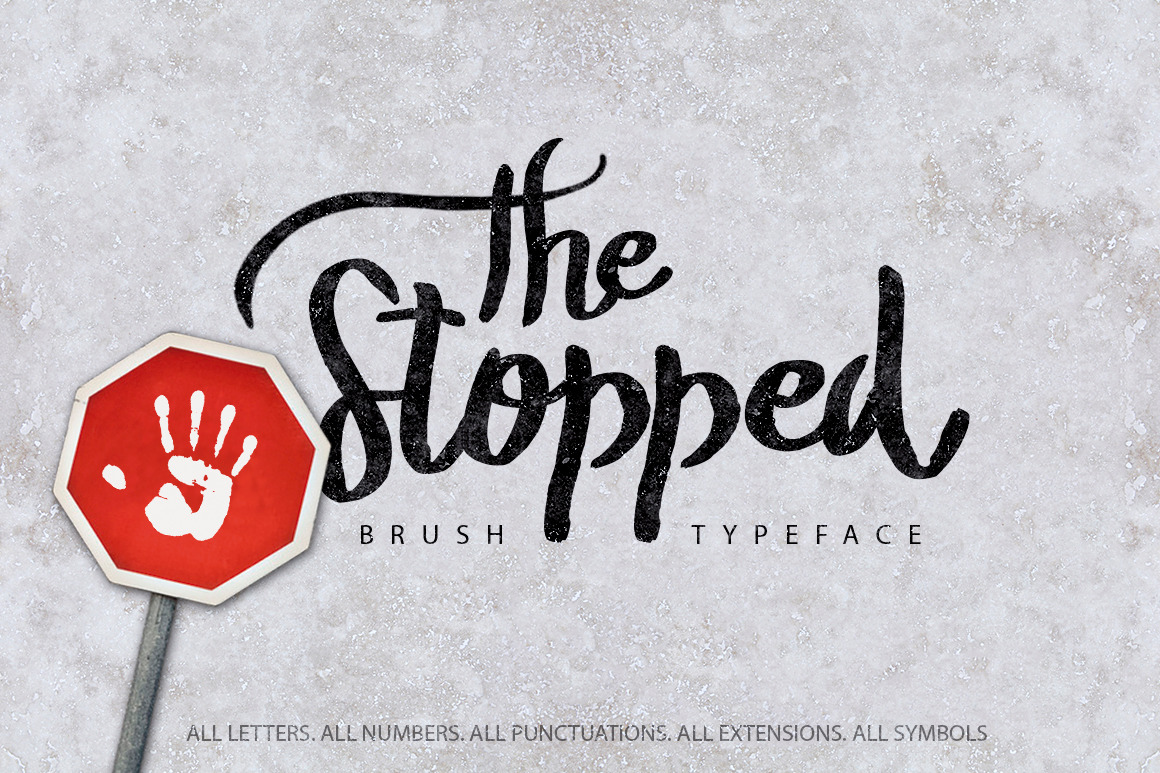
The Stopped Brush Typeface
The Stopped is a handmade font family created for amateur and professional designers. Bold, regular, light and extra-light letters.
All letters. All numbers. All punctuations. All extensions. All symbols
Languages: Albanian, Basque, Catalan, French, Italian, Polish, Breton, Chamorro, Danish, Dutch, English, Finnish, Frisian, Galician, German, Malagasy, Norwegian, Portuguese, Spanish, Swedish